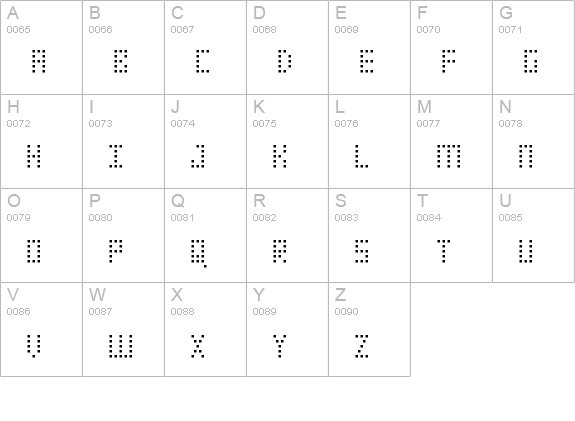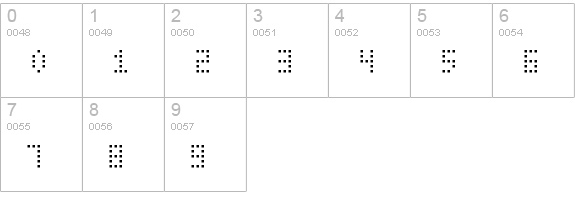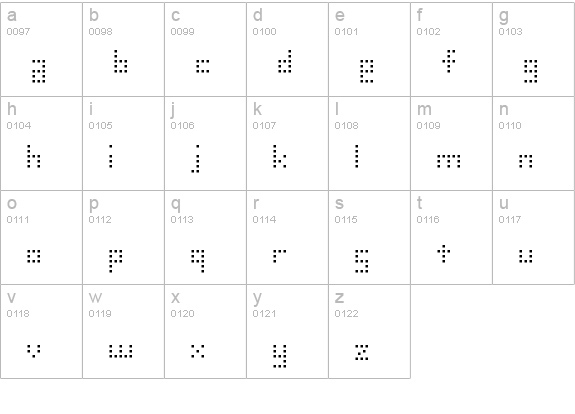
SMdot12 Font Details
Introducing SMdot12 font, a versatile typeface that combines modernity and elegance in a unique way. This font is perfect for adding a touch of sophistication to any design project, whether it's a logo, poster, website, or print material. SMdot12 is a free font that caters to the needs of designers and creatives alike. Its clean and sleek lines make it easily readable, while its contemporary style adds a sense of sophistication and professionalism to any design. The font's versatility allows it to be used across a wide range of industries and themes, making it a go-to choice for designers looking to make a statement. What sets SMdot12 apart is its attention to detail and commitment to quality. Every character and glyph has been meticulously crafted to ensure consistency and readability. The font's balanced proportions and precise spacing create a harmonious flow of text, making it a pleasure to read and work with. One of the best things about SMdot12 font is that it is freely available to download at FontsMarket.com. This means that designers can easily access and utilize this incredible typeface without any financial constraints. Whether you're a professional designer or a hobbyist, SMdot12 font provides you with the opportunity to enhance your creations without breaking the bank. So why wait? Download SMdot12 font today and elevate your designs to new heights. With its modern elegance, versatility, and the fact that it's freely available, this font is a must-have for any designer's toolkit. Don't miss out on the opportunity to create stunning designs that leave a lasting impression. Get SMdot12 font now and let your creativity soar!